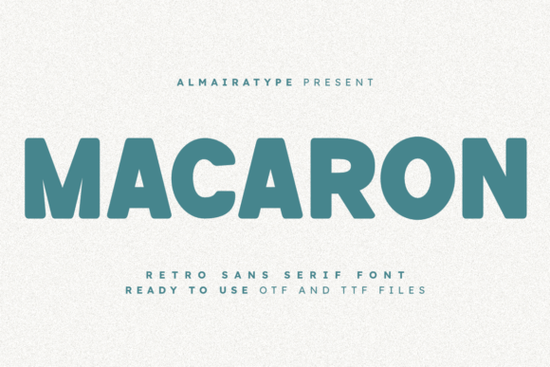
If you are looking for a typeface that captures the nostalgic feel of the 1970s and 1980s while keeping things highly readable, the Macaron Font is a solid choice. This bold retro sans serif brings a playful warmth to modern creative projects. It features a heavy weight and soft-curved profiles that make it stand out without sacrificing legibility.
What makes this typeface stand out for vintage designs?
The charm of this typeface lies in its ability to channel classic display typography without looking overly dated or cheesy. The geometric structural alignment gives it a sturdy foundation, while the friendly curves keep the overall mood inviting and warm. When you are designing a charming business brand identity or laying out trendy merchandise, you need a font that feels both established and approachable.
How well does it work for craft cutting machines?
For crafters and DIY enthusiasts using vinyl cutters, technical compatibility is just as important as aesthetics. Messy nodes and overlapping paths can ruin a cutting job, leading to wasted vinyl, frustrated crafters, and weeding sessions that take twice as long as they should. The ultra-clean vector outlines in this download ensure a flawless experience on machines like Cricut and Silhouette.
Which commercial projects benefit the most from this style?
Independent clothing brands and Print on Demand sellers often need typography that grabs attention quickly on a crowded digital shelf or a busy marketplace. The solid weight provides a distinct professional look that helps maximize audience conversion and makes your products look premium. It is particularly effective for social media headers, product packaging, and bold statement tees.
How does it compare to other retro display fonts?
While many vintage styles lean too distressed, grungy, or hard to read at smaller sizes, this typeface keeps things incredibly clean and accessible. It successfully bridges the gap between nostalgic flair and modern digital usability. If you are building a brand identity and need a secondary display font with a bit more edge or sharpness, you might look at this angular alternative for a complementary aesthetic.
Quick checklist for your next project
- Keep it brief: Use this typeface for short, impactful headlines rather than long paragraphs to maintain readability.
- Pair it simply: Combine it with a basic, neutral sans serif for your body text to let the retro style shine.
- Check your spacing: Adjust the tracking slightly depending on the size, as heavy fonts can look cramped when scaled down.